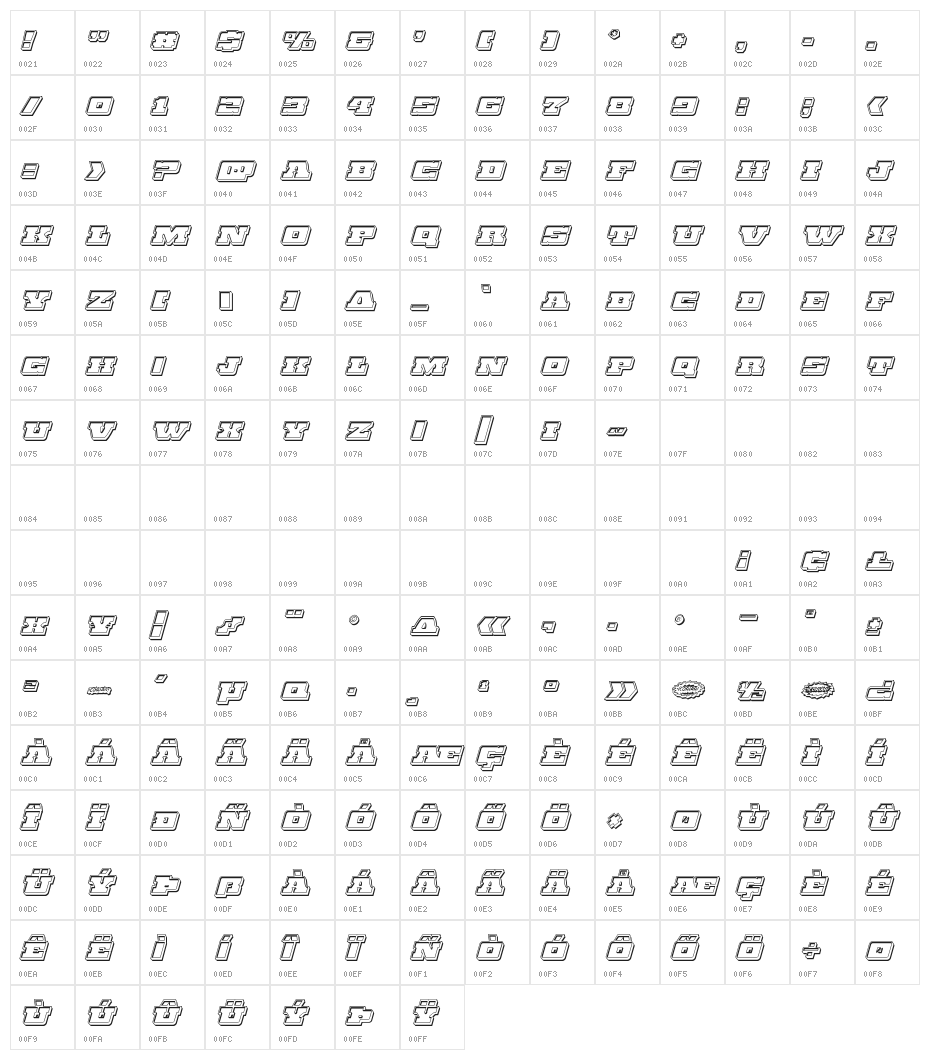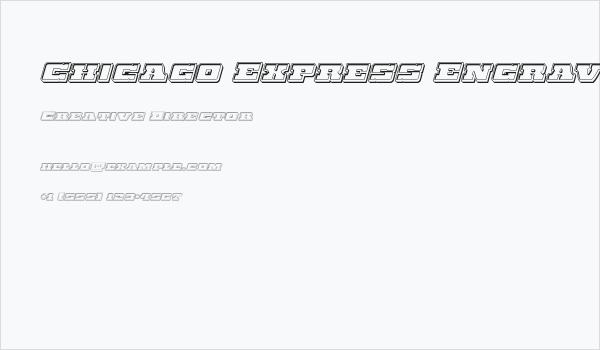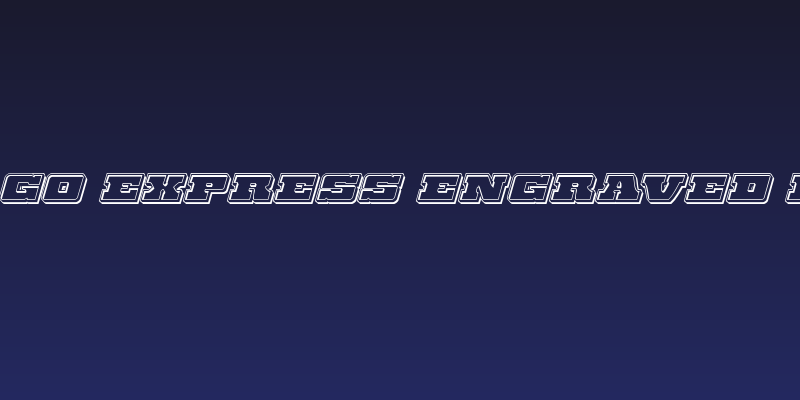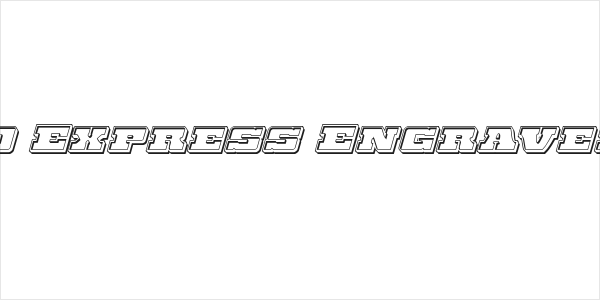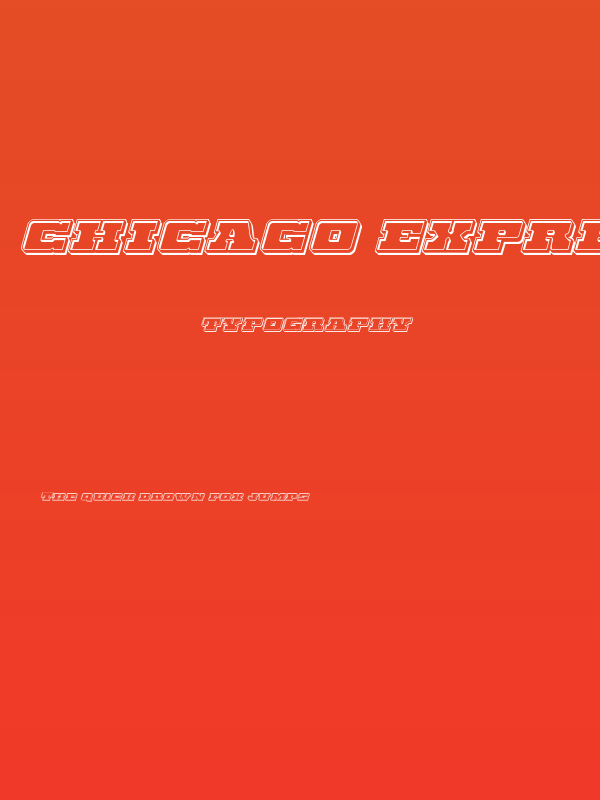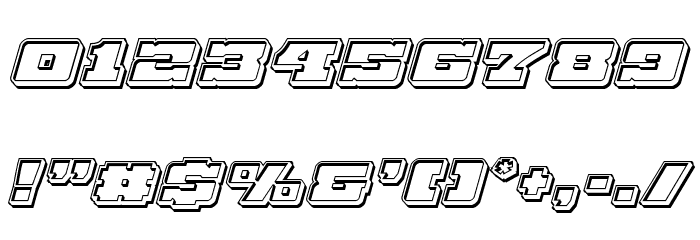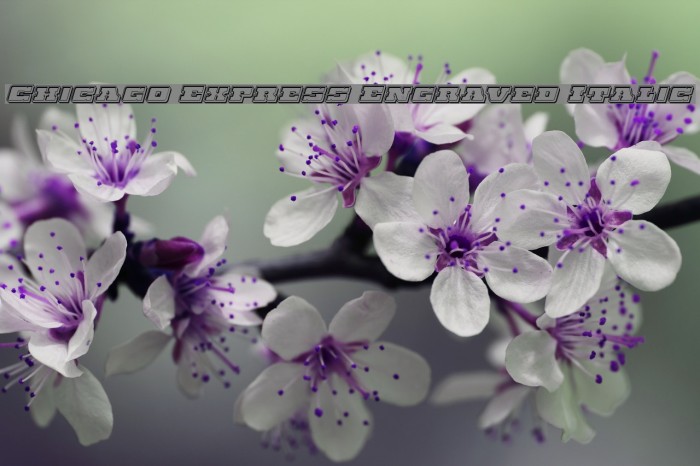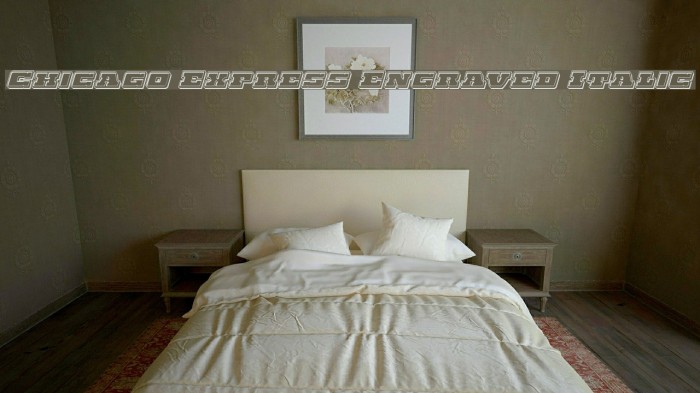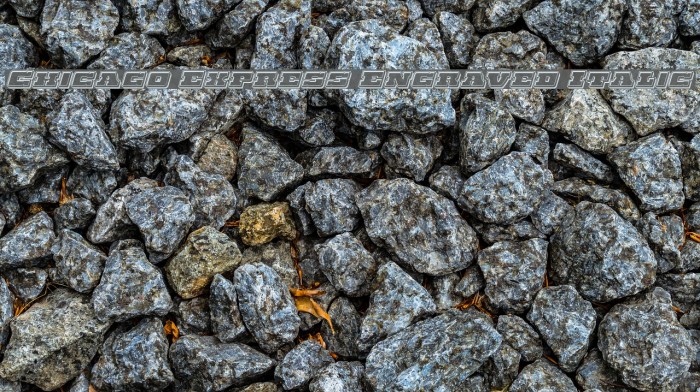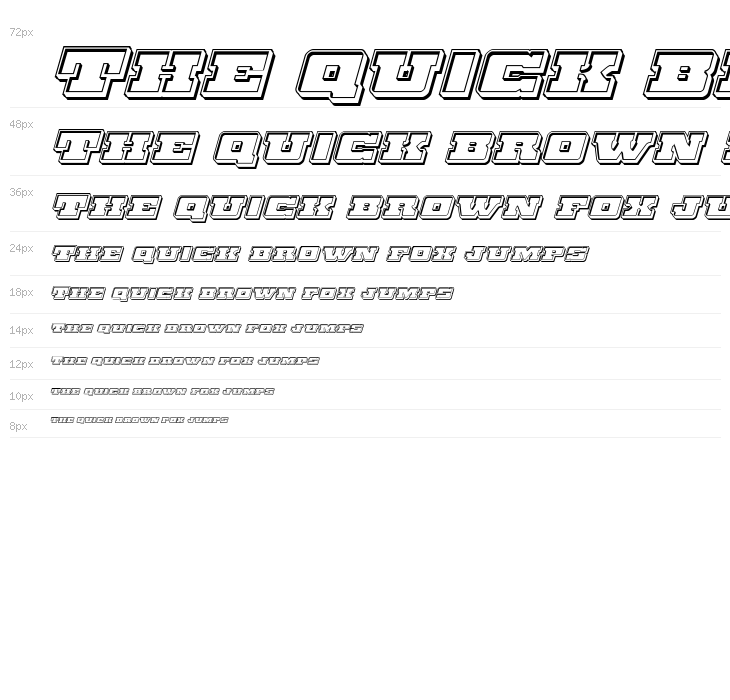
Chicago Express Engraved Italic Font
This font features a bold, engraved style with a distinct italic slant, giving it a dynamic and energetic appearance. The characters are outlined, creating a three-dimensional effect that adds depth and visual interest. The uppercase letters are prominent and commanding, making them ideal for attention-grabbing headlines or titles. The numbers and special characters maintain the same bold and engraved aesthetic, ensuring consistency across all text elements. The overall design is reminiscent of vintage signage, yet it carries a modern twist with its italicized form.
| Overall Style | Vintage, Modern |
| Use Case | Headlines, Logos, Signage |
| Proposed Projects | Ideal for vintage-themed posters, logos, and signage that require a bold and dynamic presence. |